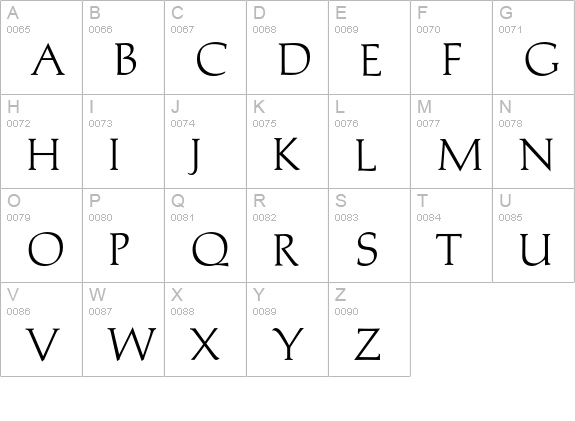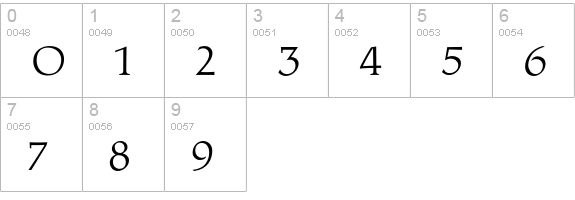
MichelangelOneArchDig Font Details
MichelangelOneArchDig is a stunning and sophisticated font that combines classic elegance with a modern twist. Its sleek lines and sharp angles give it a unique architectural feel, making it perfect for projects that require a touch of sophistication and creativity. Whether you're designing a logo, poster, or website, MichelangelOneArchDig will make your text stand out with its bold presence. The best part? MichelangelOneArchDig is completely free to download at FontsMarket.com. This means you can access this stylish font without any cost, making it a valuable addition to your design toolkit. Don't miss out on the opportunity to elevate your designs with MichelangelOneArchDig – download it today and let your creativity shine!